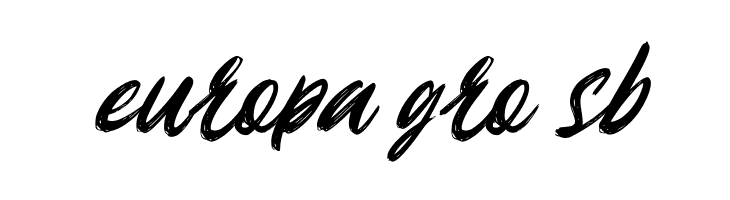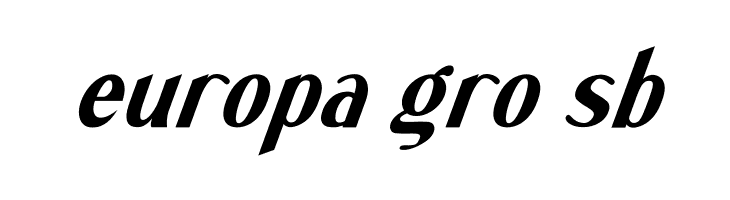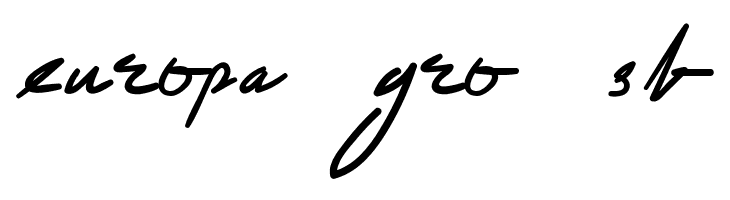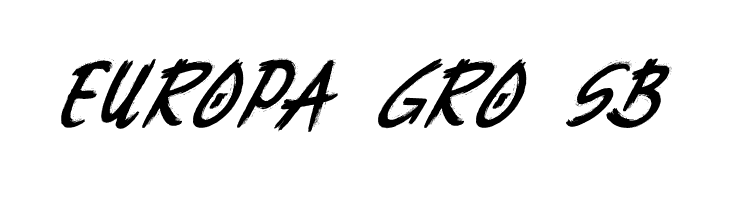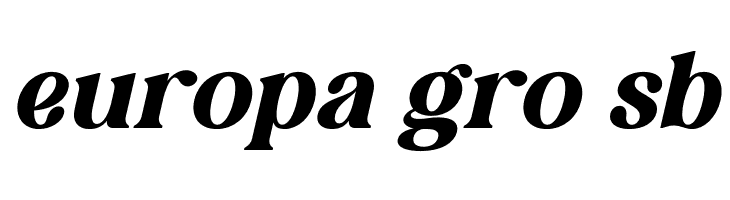
A bold, brush-style script font with dynamic, slanted characters.
A bold, slanted font with high contrast and angular shapes, ideal for dynamic headlines.
An elegant, cursive handwritten font with fluid, slanted lines.
A bold, angular font with a dynamic, slanted design.
A bold, italic font with dynamic slanted letterforms and high contrast strokes.
A playful, casual handwritten font with smooth curves and a slightly slanted style.
A dynamic, handwritten font with fluid, slanted strokes.
A bold, brush-style font with dynamic, slanted characters.
A bold, brush-style font with dynamic, slanted strokes and a handwritten feel.
A bold, italic serif font with dynamic slanted characters.